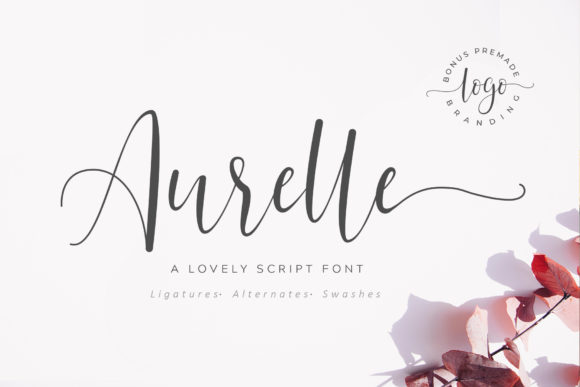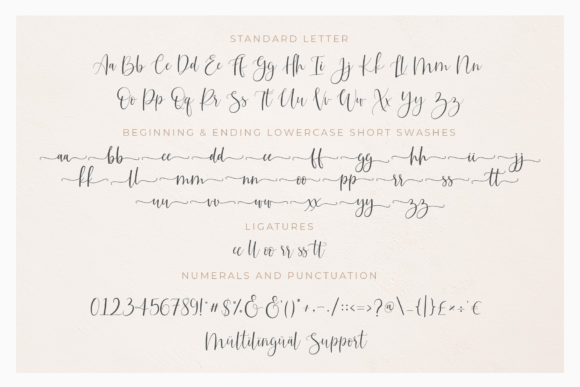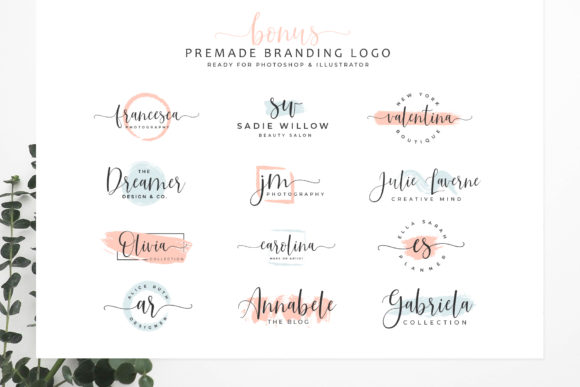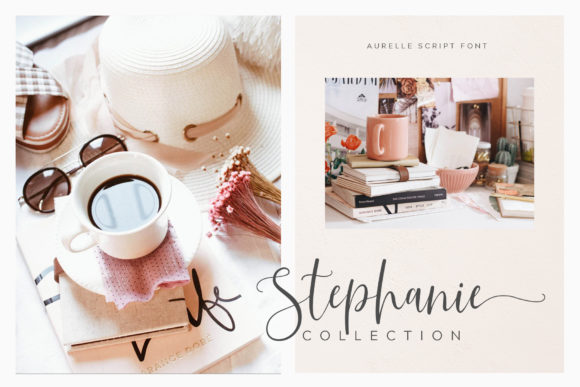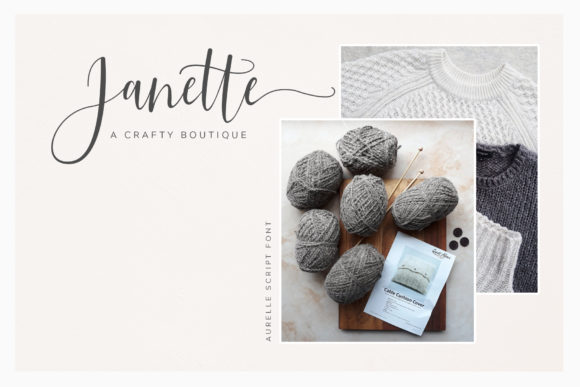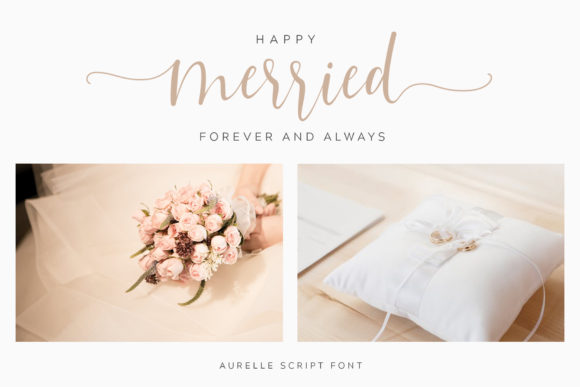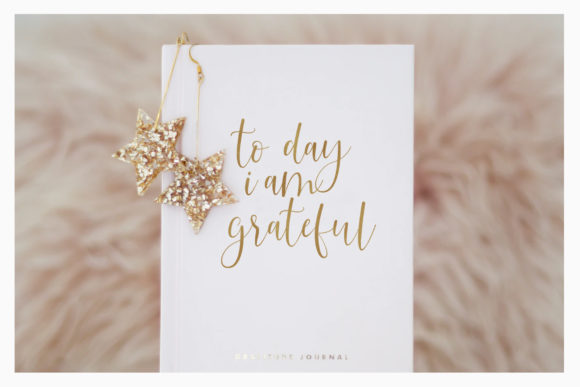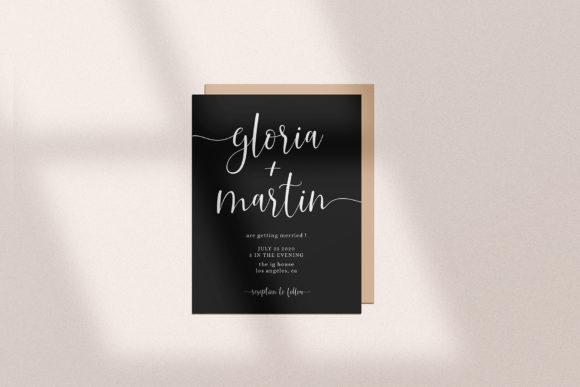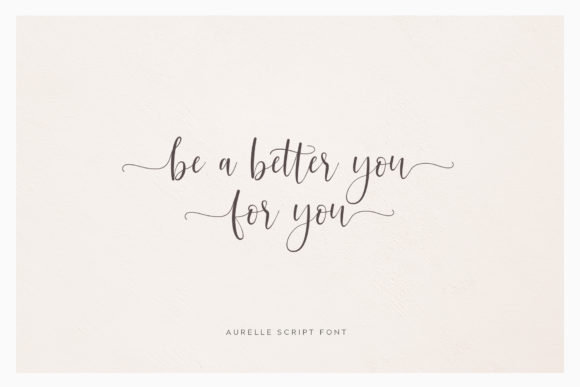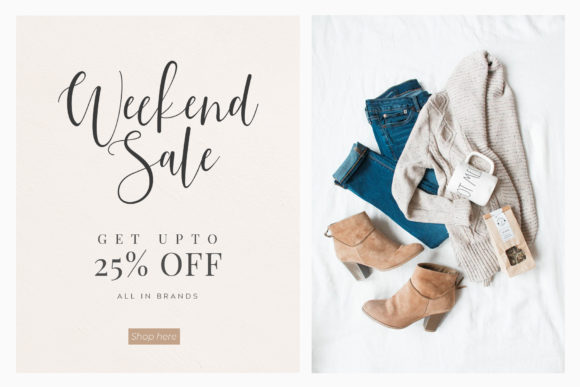
Aurelle Font
About Aurelle Font
Aurelle is a beautiful script font that will give your design instant flair. Fall in love with its lovely flowing curves!